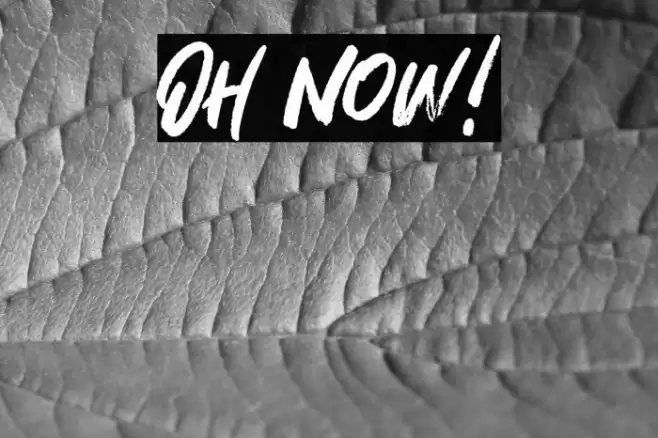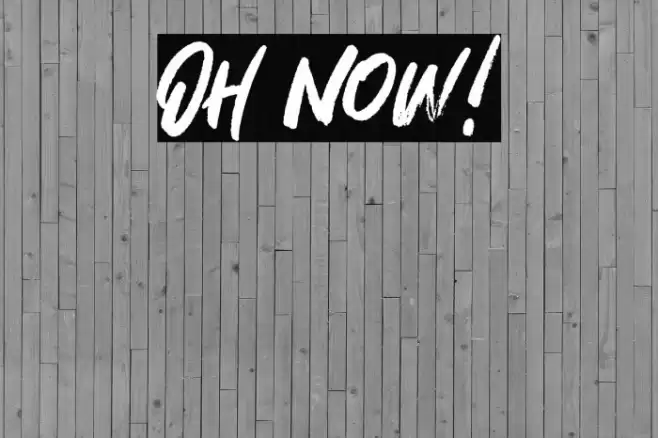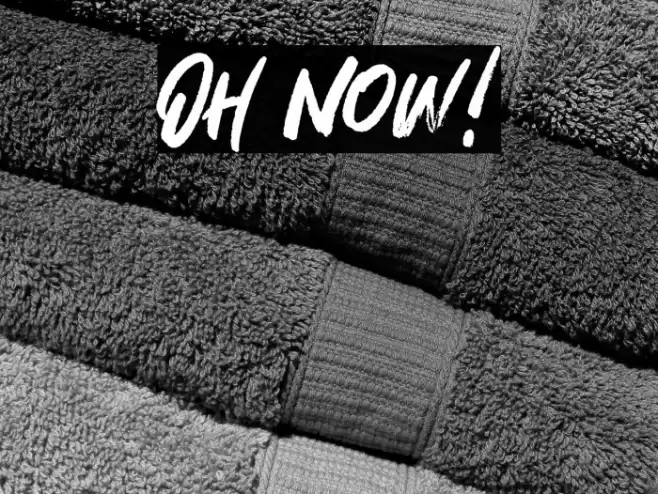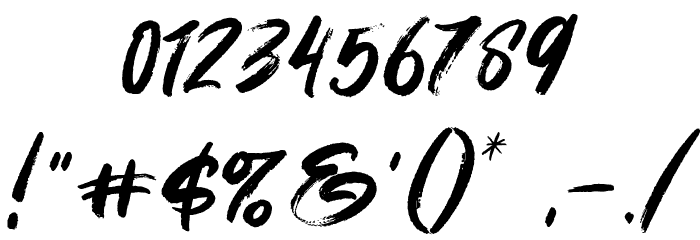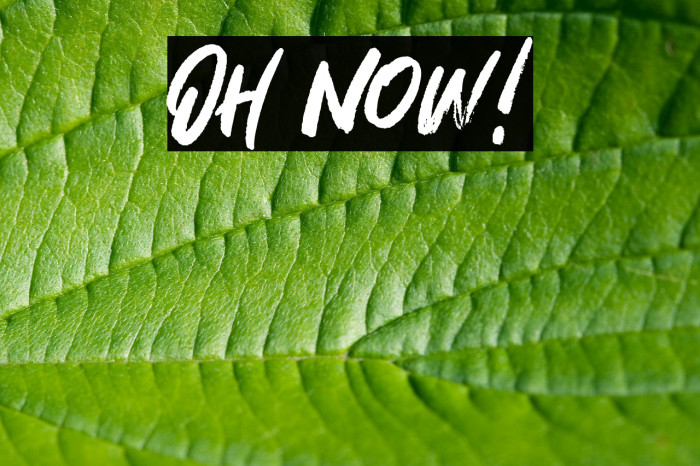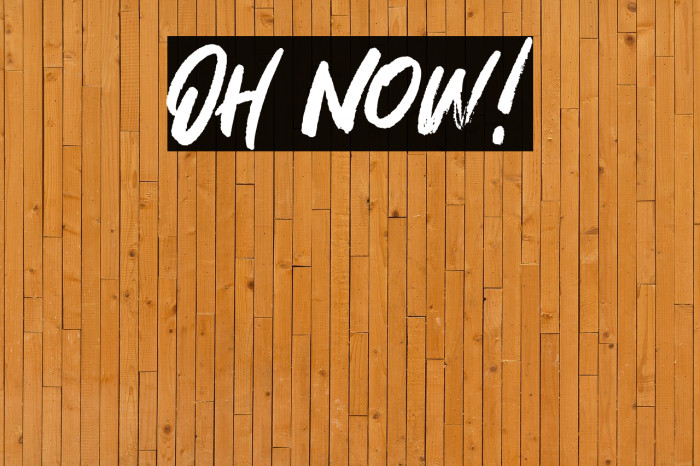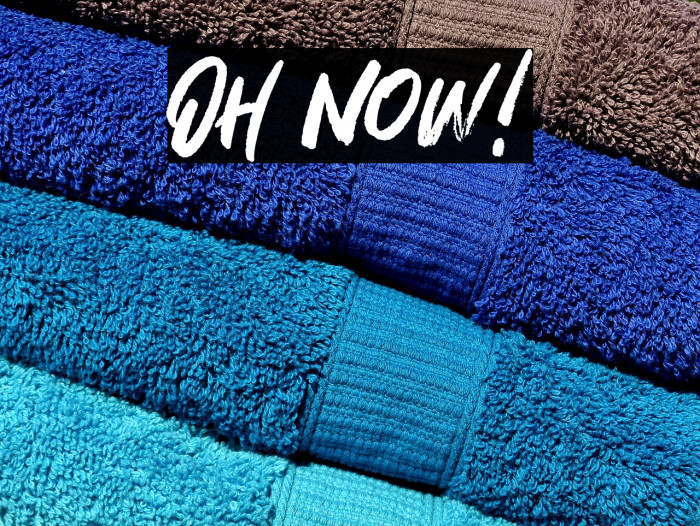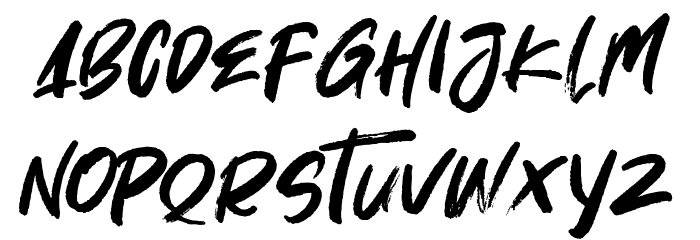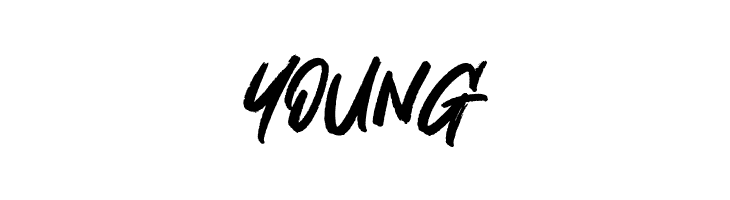
Oh Now! Font
Oh Now! Description
This font exudes a bold, expressive style with a brush-like texture that gives it a dynamic and energetic appearance. The strokes are thick and varied, creating a sense of movement and fluidity. Each character is unique, with a slightly irregular form that adds to its handcrafted feel. The uppercase and lowercase letters maintain a consistent style, while the numbers and special characters integrate seamlessly, enhancing the font's versatility. This font is perfect for projects that require a personal touch or a statement piece, as its boldness and artistic flair make it stand out.
A bold, brush-style font with dynamic, expressive strokes.
- Proposed Projects: Ideal for branding, posters, artistic projects, and any design needing a bold, personal touch.